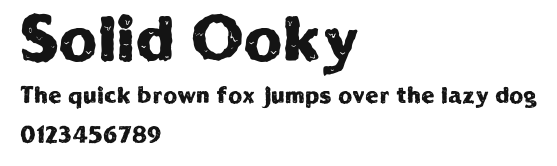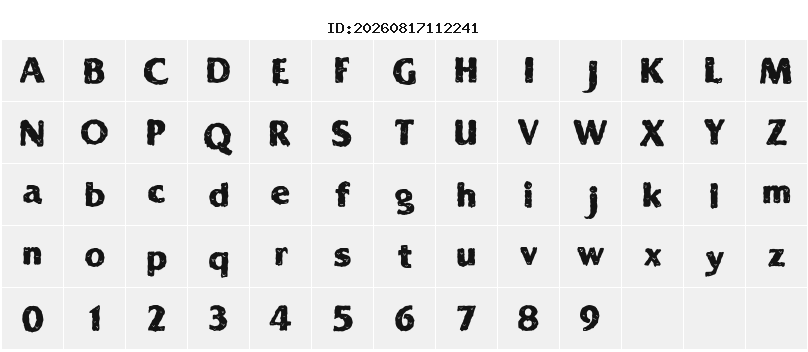
• Font Name: Solid Ooky
• Font ID: Solid Ooky
• Full Font Name: Solid Ooky
• PostScript Name: SolidOoky
About Solid Ooky.ttf
Solid Ooky.ttf is a modern, elegant sans-serif font designed for ultimate readability and visual harmony. Perfect for branding, headlines, web design, and print materials.